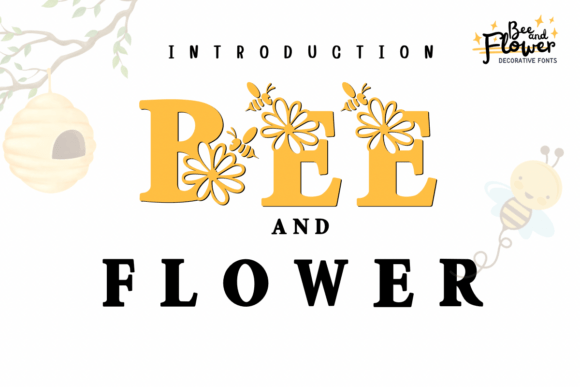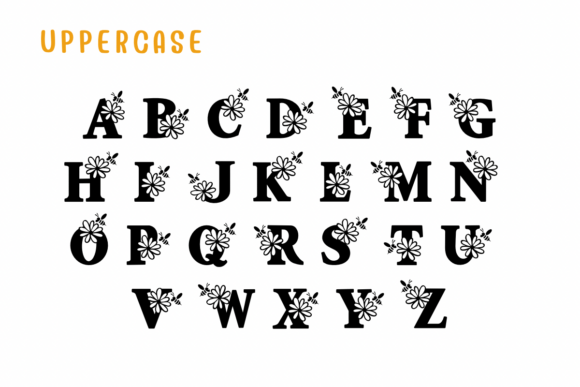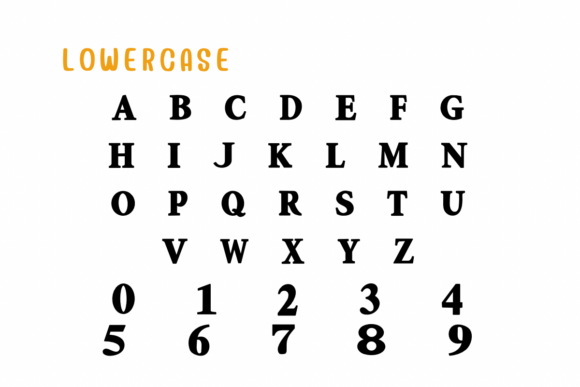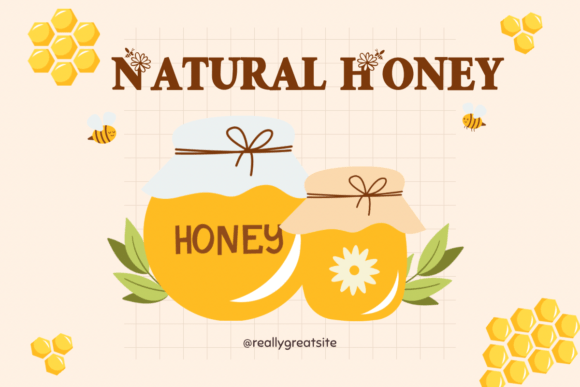
Flower and Bee Font
About the Flower and Bee Font
Presenting Flower and Bee Font, a unique and stylish typeface that will make your work stand out. Flower and Bee is a Decorative font. You can use it for taking notes, writing a diary, or making greeting cards. However, you can still use it for other designs, such as banners, content, mugs, cards, shirts, stationery, social media posts, and more!
Flower and Bee’s decorative style is ideal for headlines, short text blocks on packaging, or eye-catching elements in social media graphics. Its whimsical nature makes it perfect for branding projects targeting a younger demographic or businesses with a playful, friendly image. However, avoid using it for body text or lengthy paragraphs; its ornate details can hinder readability.
For optimal visual balance, pair Flower and Bee with a clean sans-serif like Montserrat for a modern contrast, or a classic serif like Garamond for a touch of elegance. A simple geometric sans-serif would also provide a strong counterpoint to its organic forms.
The font exudes a cheerful, approachable personality, best suited for projects that require a lighthearted and slightly informal aesthetic.
Flower and Bee Font Usage Examples
Flower and Bee Font Example